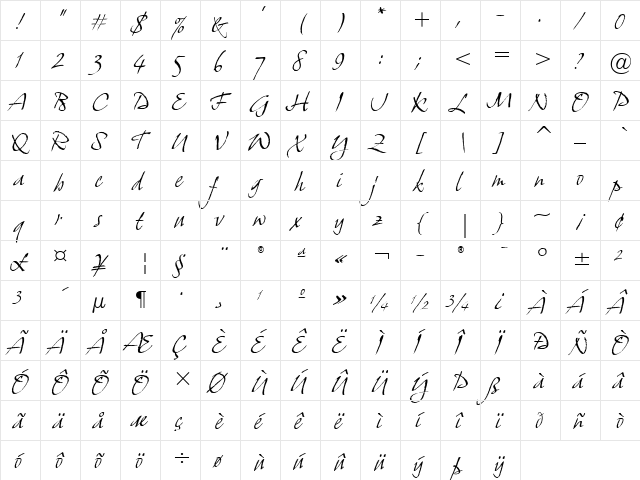
GrimshawHand ITC Italic
Design Context for GrimshawHand ITC Typeface
GrimshawHand ITC brings a calligraphic fluidity to the page — its connecting strokes and expressive curves give it an unmistakably human quality.
Font Pairing: Combine GrimshawHand ITC with a simple geometric sans for maximum contrast — the tension between flowing curves and clean structure is a classic typographic pairing.
Pro Tip: Pair GrimshawHand ITC with a clean sans-serif for supporting text. The contrast between fluid script and geometric structure creates an elegant typographic hierarchy.